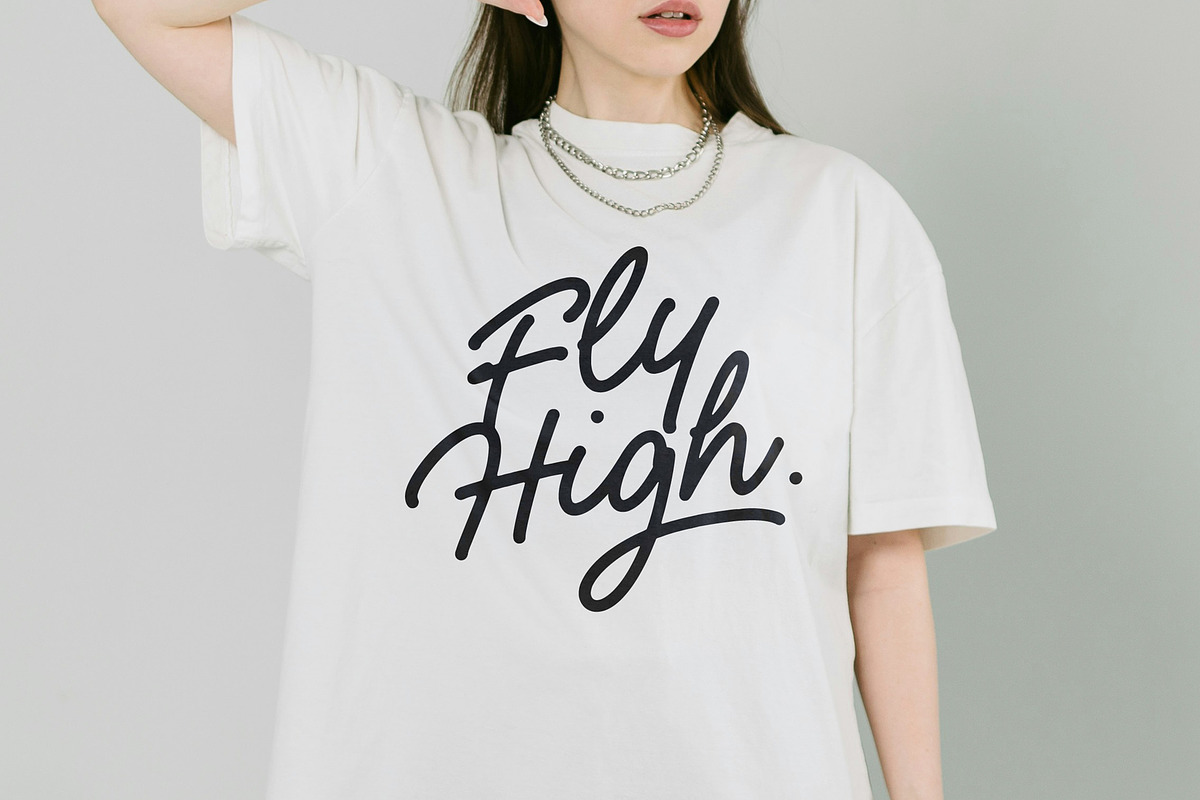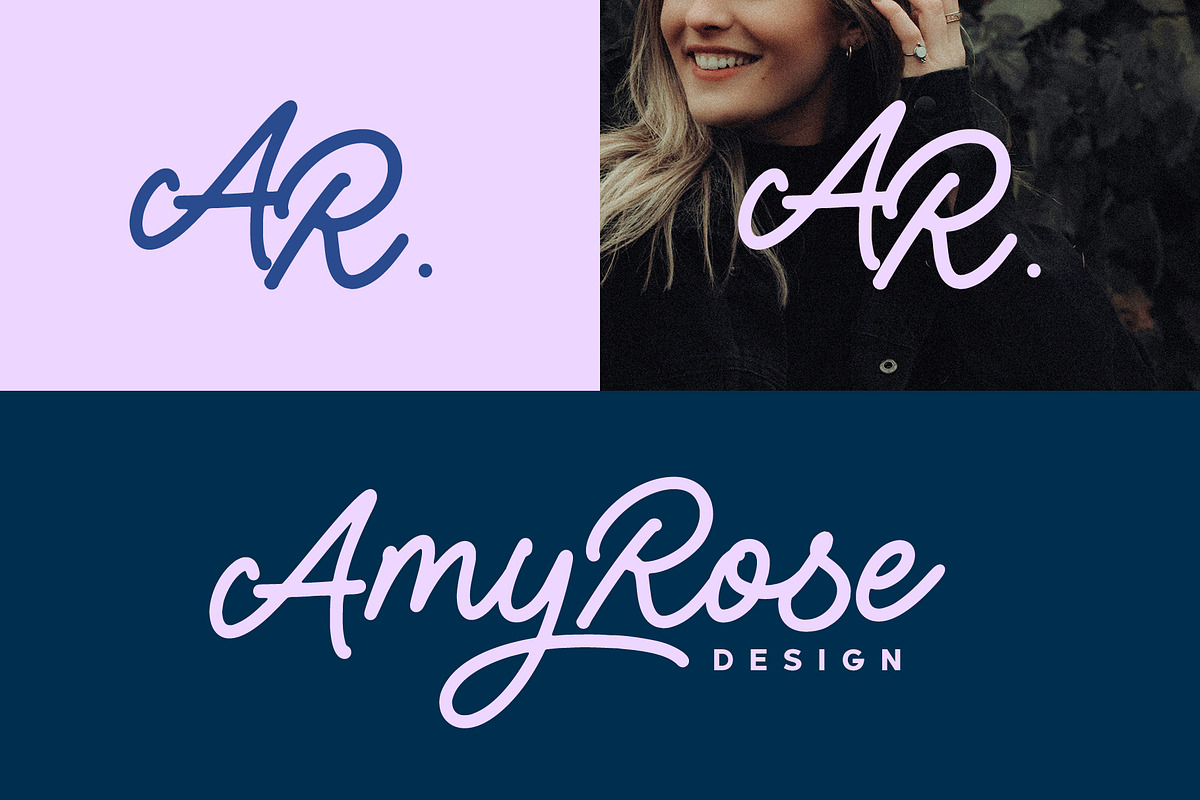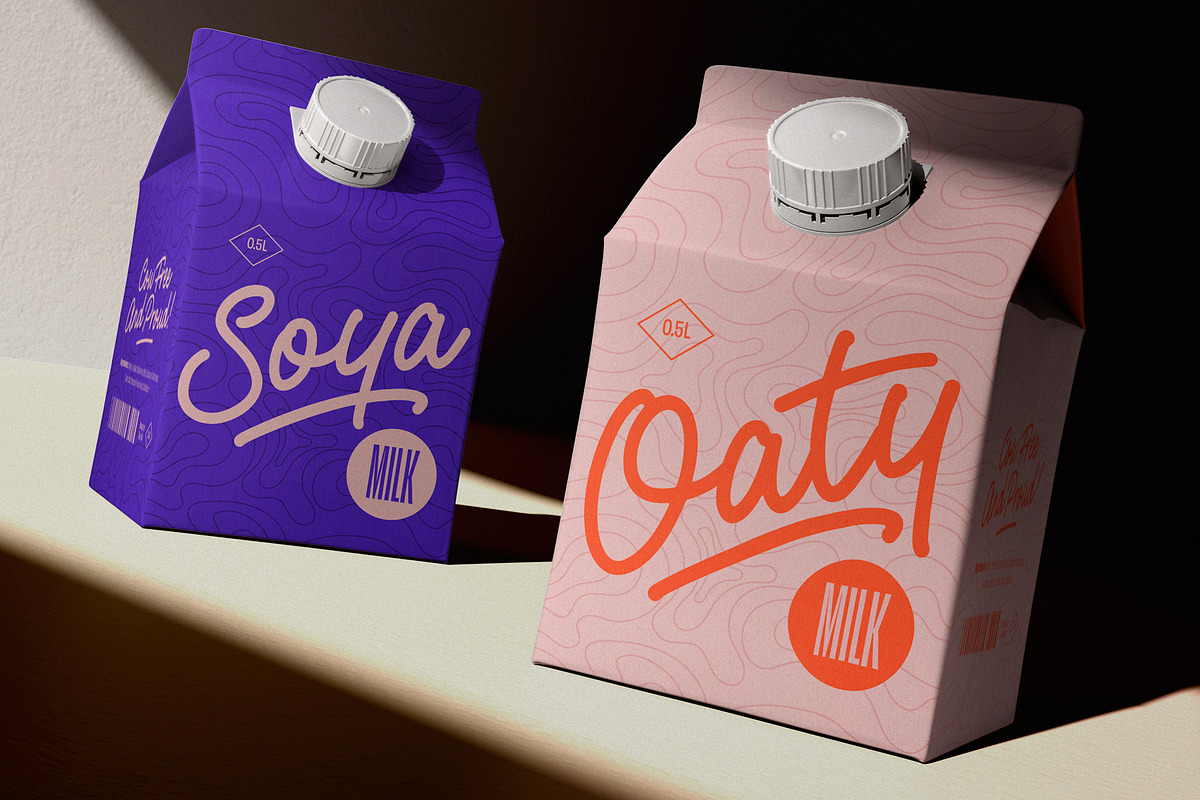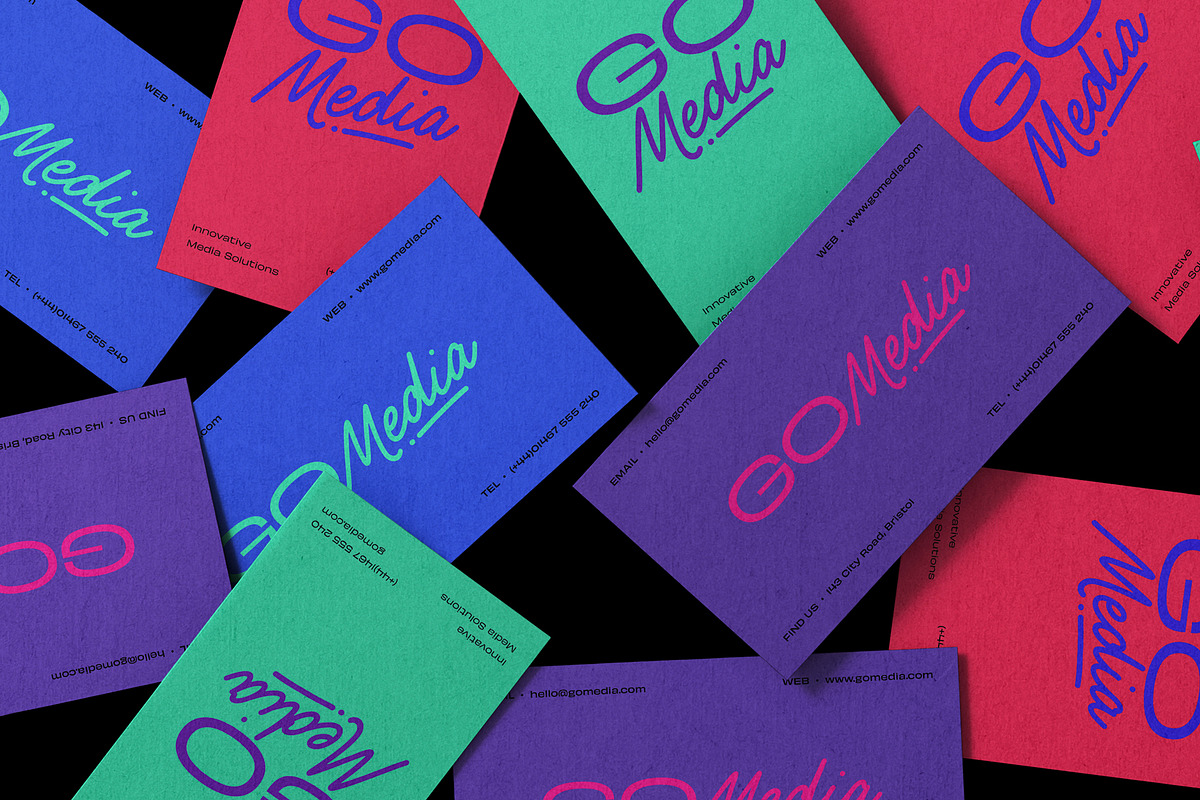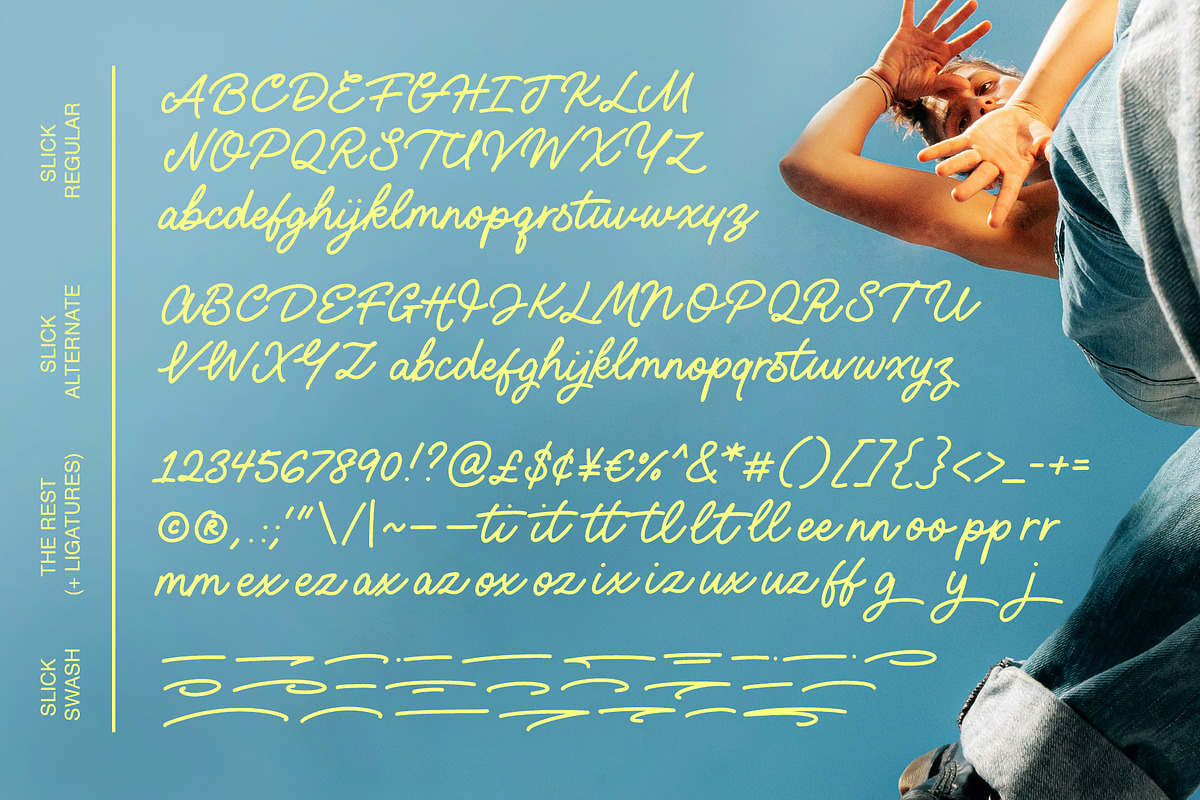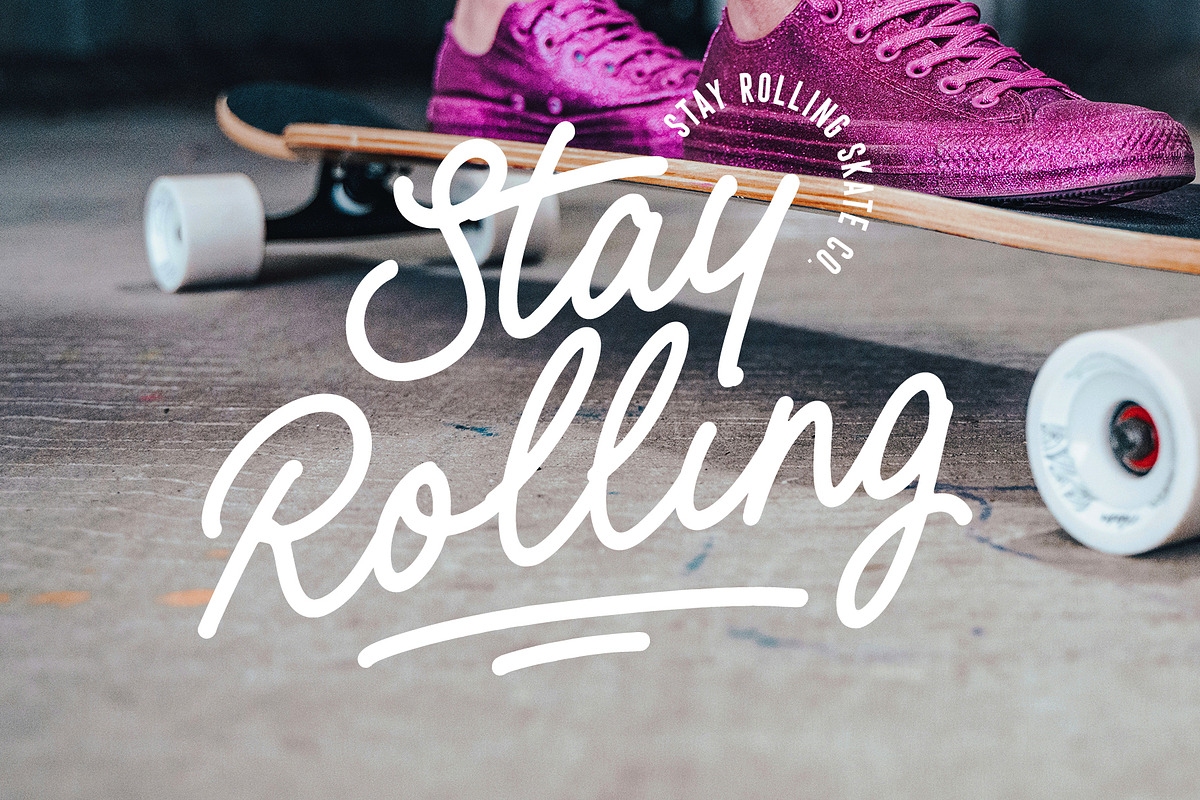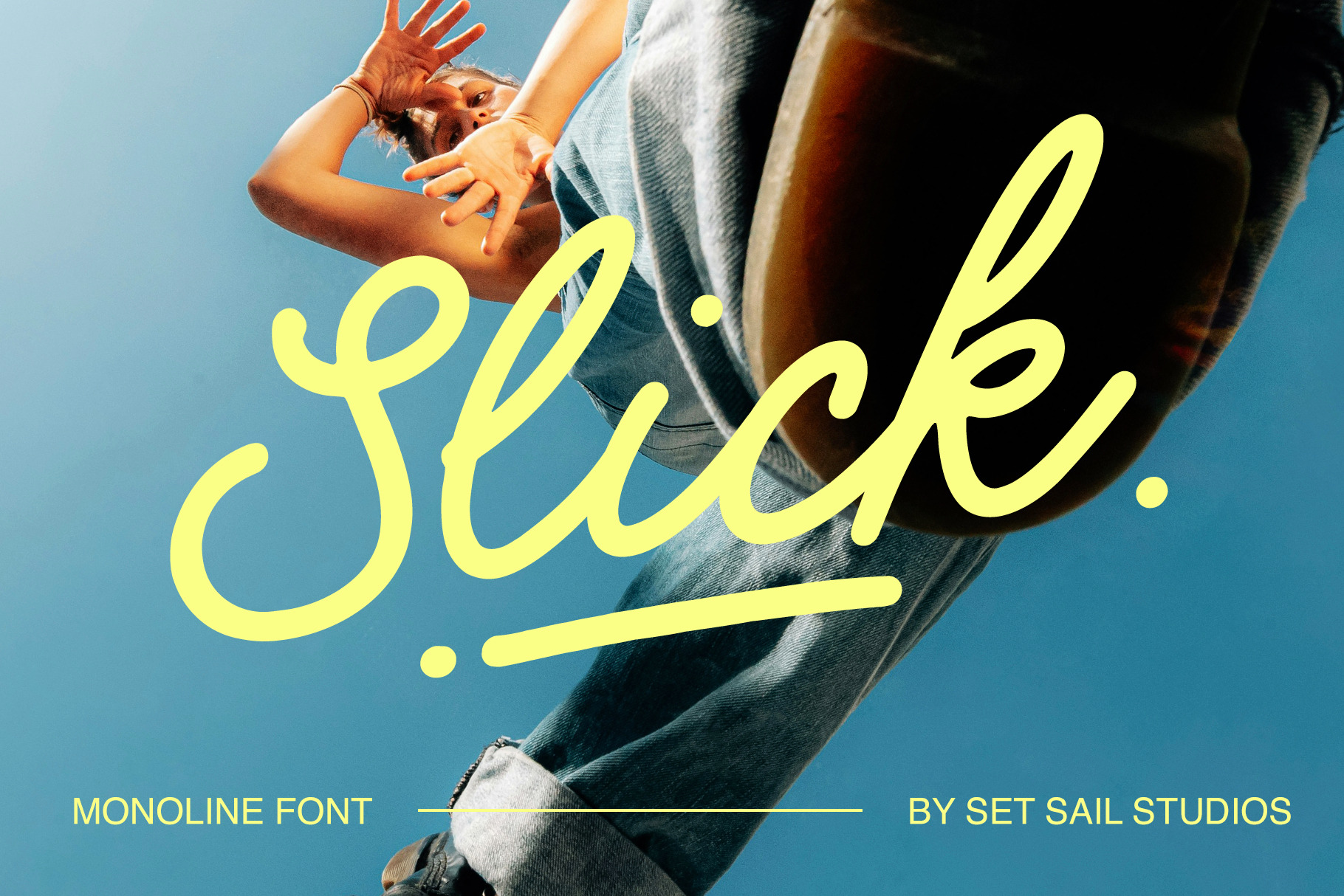
Slick Font
Introducing the Slick Font! A cool, clean, silky smooth monoline script font ready to add some fresh & fun-loving cursive type to your designs. Slick is packed full of extra features —alongside the Regular full set of characters, there is also a full Alternate set of upper & lowercase characters available in a separate font, as well as 26 Swashes, great for underlining your Slick font, also available as it's own font (simply type any a-z letter to generate a swash).
Slick also includes 23 ligatures (double letter combinations) to help letters flow more naturally and give you even more layout options. Simply turn on 'Standard Ligatures' to access these characters, or input them via a Glyphs panel.
Slick is a highly versatile script font, perfect for a range of design briefs. Whether it's playful quotes, poppin' merch and packaging designs, or super clean brand packages—Slick is sure to deliver the goods, with added style.